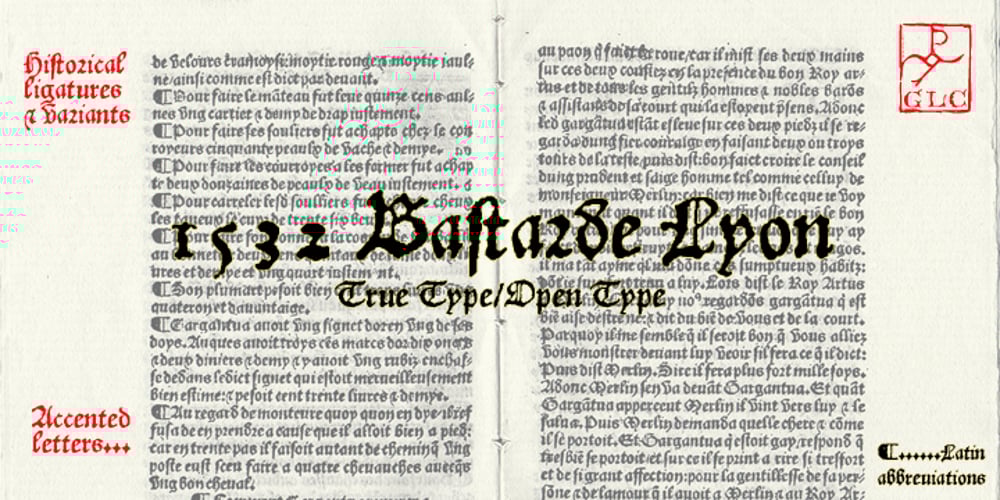
1532 Bastarde Lyon
1532 Bastarde Lyon Font Family was designed by published by GLC. 1532 Bastarde Lyon contains 1 styles and family package options. Font designed from work by an anonymous printer in Lyon (France) to print the French popular novel Les Grandes et inestimables Chroniques du grand et enorme geant Gargantua […] in 1532. The original font has a relatively small number of characters. This font include a “long s”, as typicaly medieval, but also a few ligatures . A render sheet, enclosed with files help to identify them and accented or special others characters on keyboard. It can be used as web-site titles, posters and fliers, editing ancient texts, menus or greeting cards as a very decorative font… Although this font remains clear and easy to read from 8 or 9 points on screen, it is clearly designed for print works.